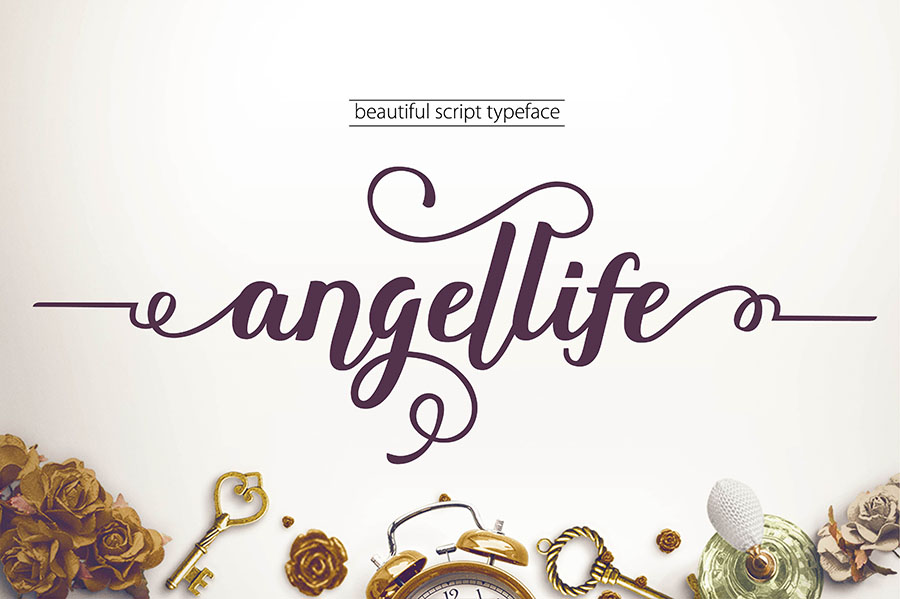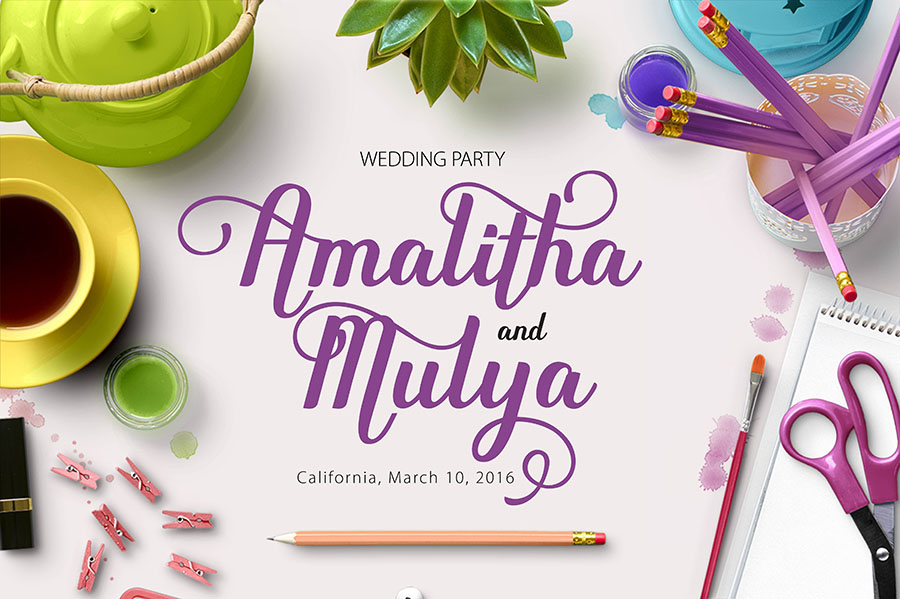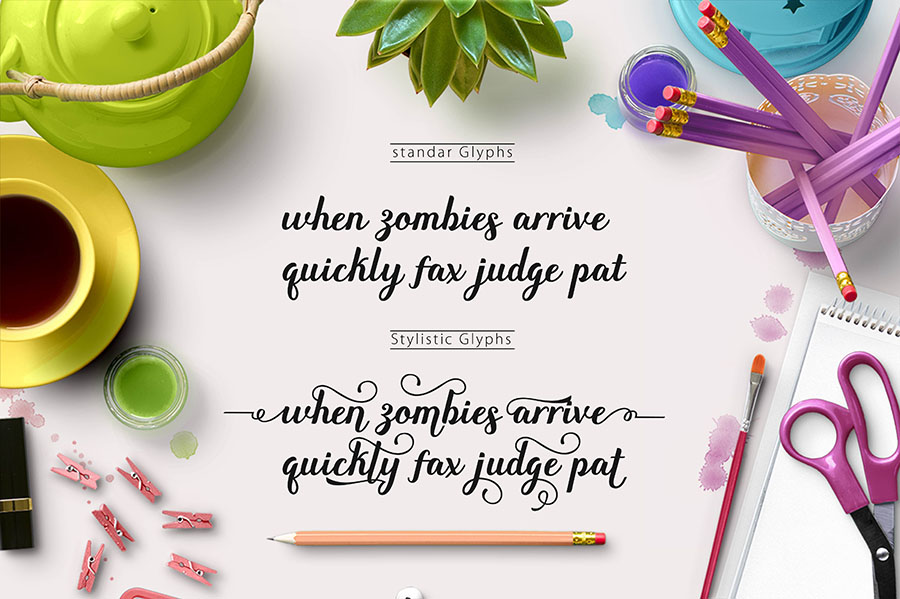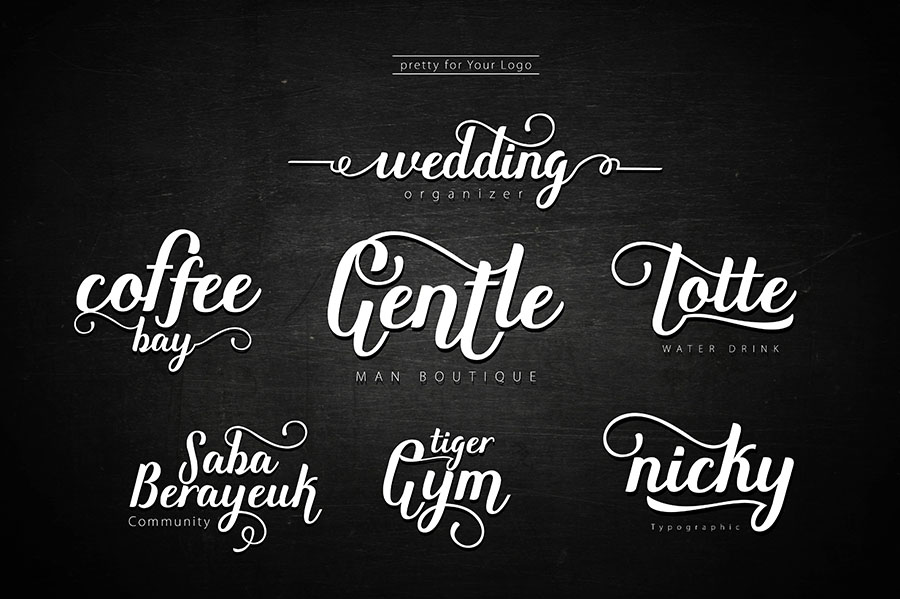
Angellife Font
Angellife Font is a beautiful script, It suitable for wedding invitation, greeting cards, t-shirt, logo or any design that you think it would fits.